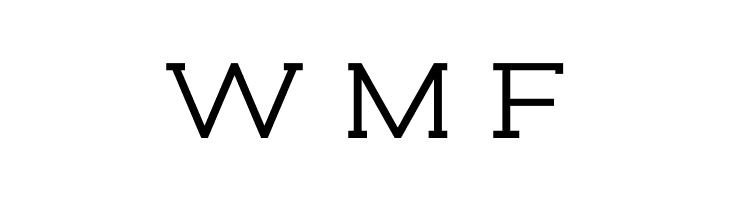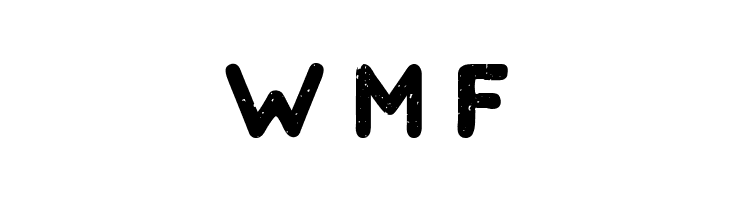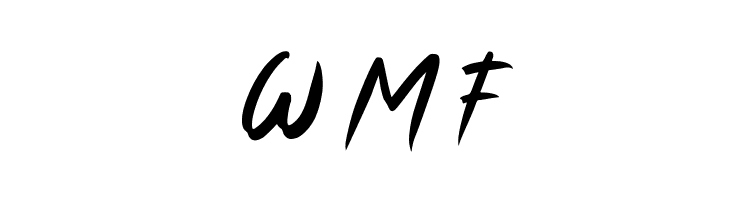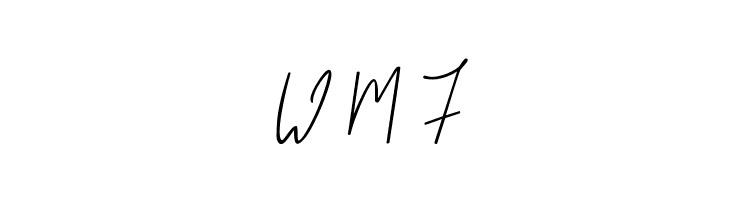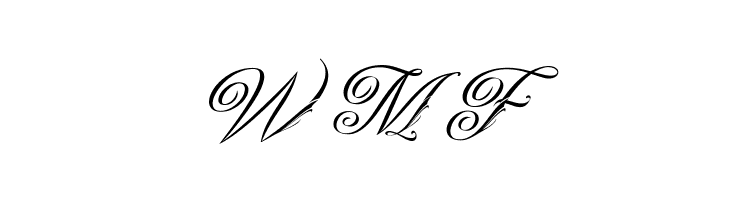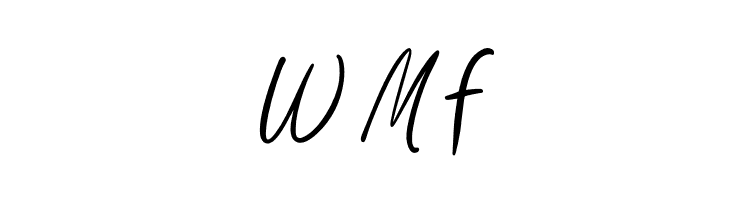
A bold, modern slab serif font with a geometric and industrial feel.
A bold, distressed font with a vintage, handcrafted feel.
A bold, dynamic script font with modern flair and expressive strokes.
A modern, elegant script font with graceful loops and swashes.
A bold, Gothic-inspired font with intricate, angular details.
A cursive, handwritten-style font with elegant, flowing lines.
An elegant script font with ornate, flowing characters and intricate swashes.
A playful, handwritten-style font with bold, slightly irregular strokes.
A bold, expressive handwritten font with dynamic strokes and a playful style.
A dynamic and fluid script font with elegant, flowing letterforms.